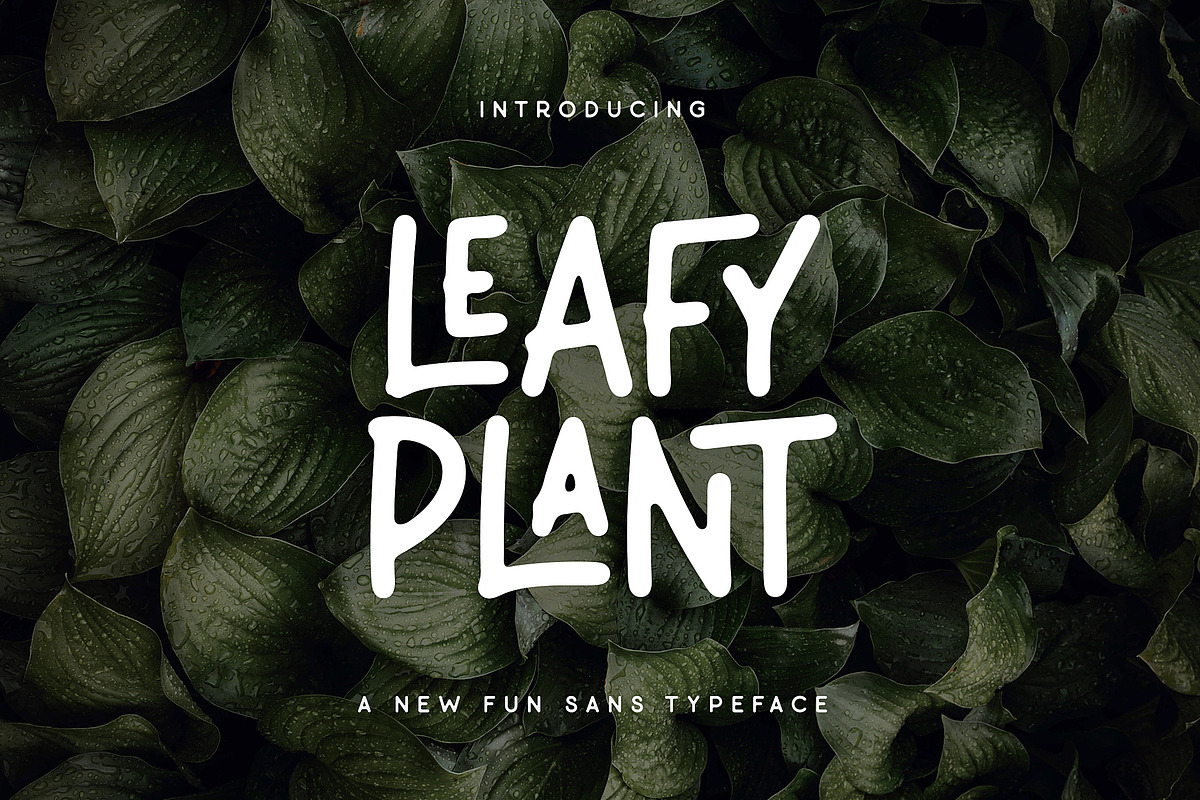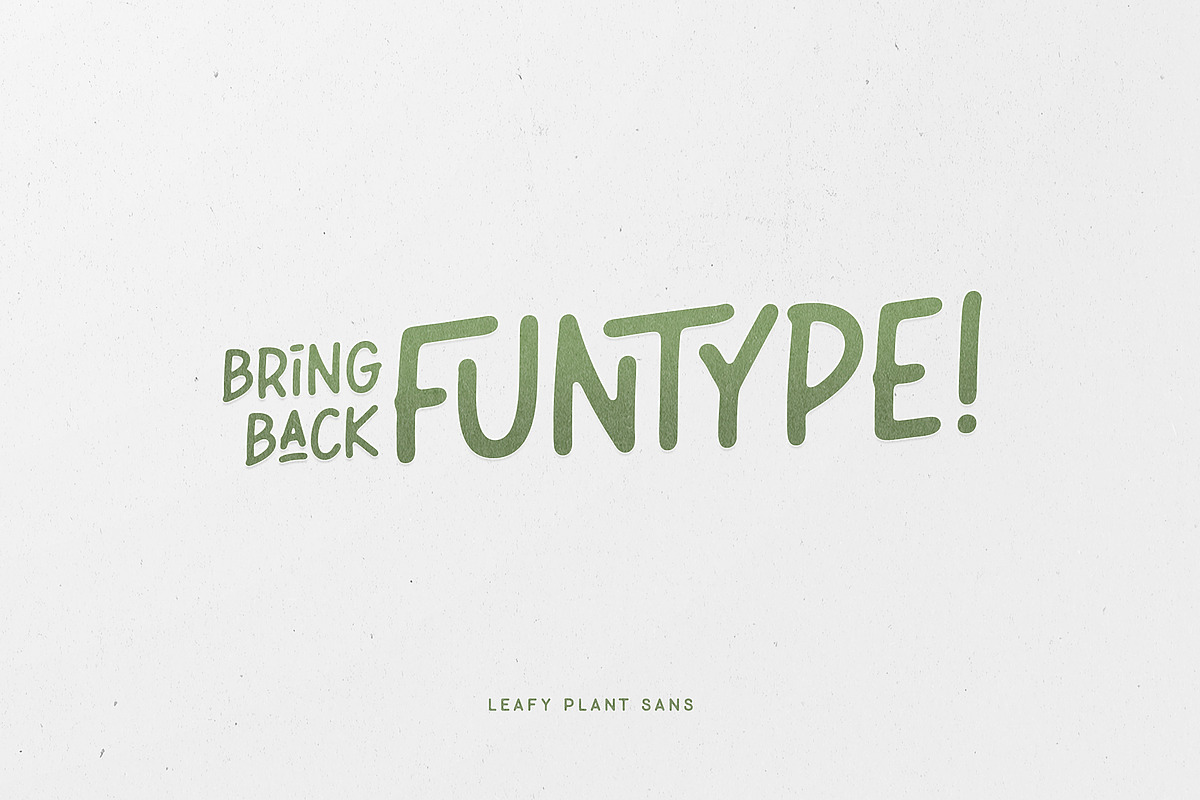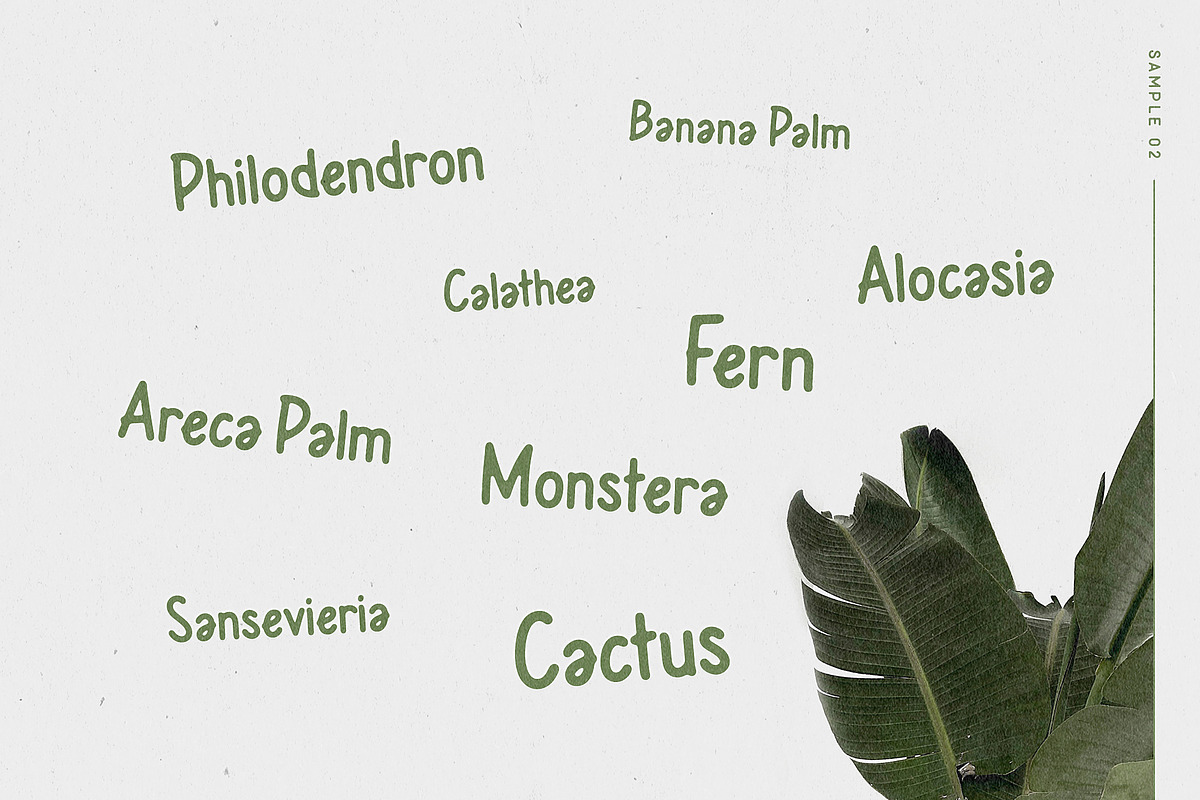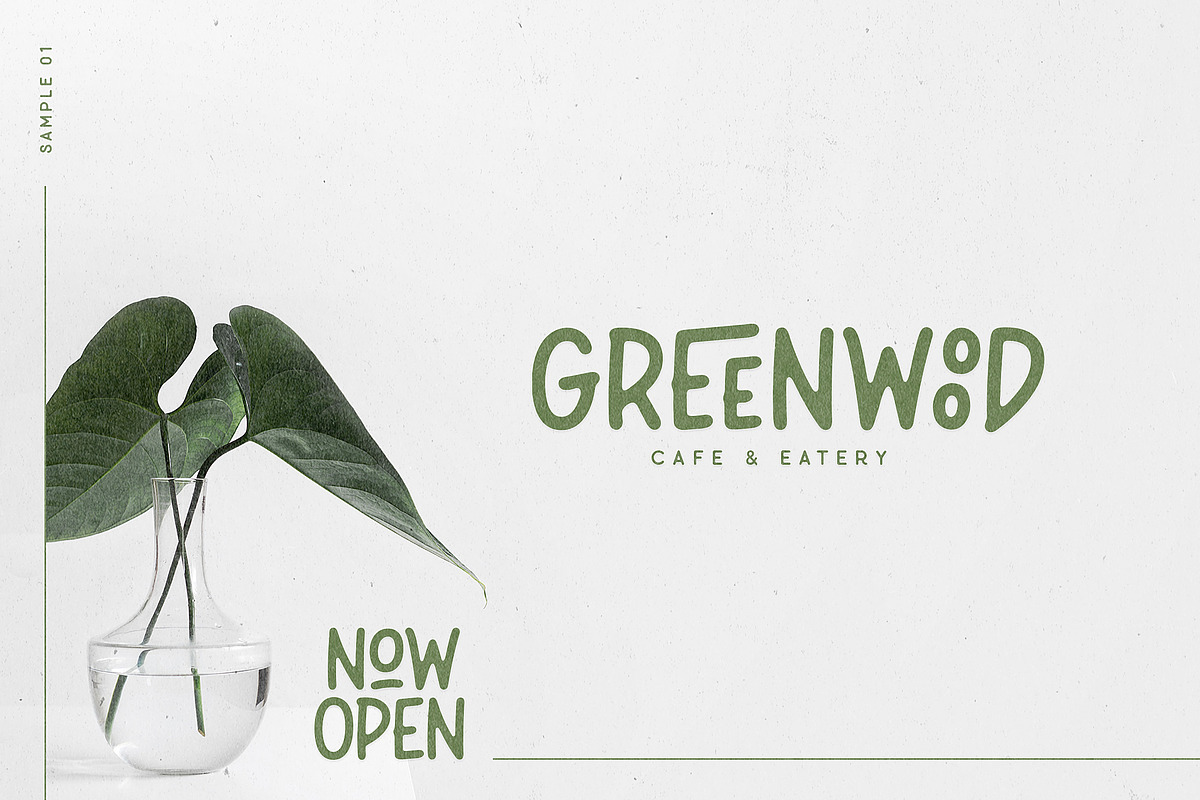
Leafy Plant Fun Typeface
Leafy Plant Fun Typeface with plenty Ligatures and Alternates.
Leafy Plant is a clean unique rounded sans serif font. Leafy Plant is the font that I try to bring back fun typeface to popular again. This font have smooth rounded edges so the font gives a feel of clean, unique, fresh, and fun. Come with many alternates character and ligatures, so that you can mix and match to suit your creativity. I think this font is perfect for people looking for fun yet fresh typography.
Leafy Plant Fun Typeface by Wandery Supply fits naturally into Branding, posters, packaging, typography.